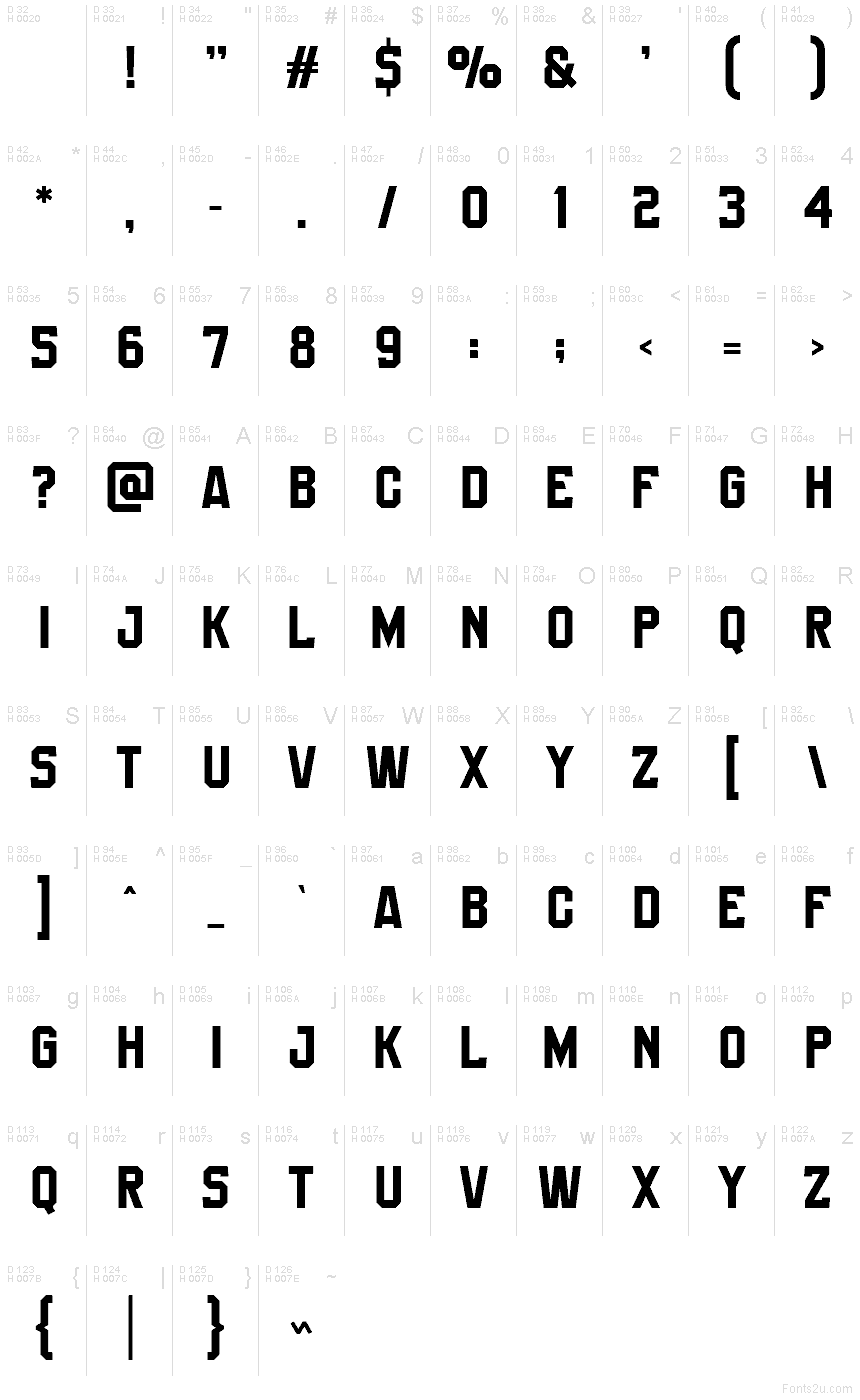
Obised
Obised font designed by Gilang Ternadho presents an old-school style display typeface whose letters have a condensed look. The font delivers a strong impact, and it catches the eye of readers almost instantly. Inspired by the geometric and minimalist aesthetic, Obised makes use of customizing the edges, angles, lines, and widths to achieve its final appearance.